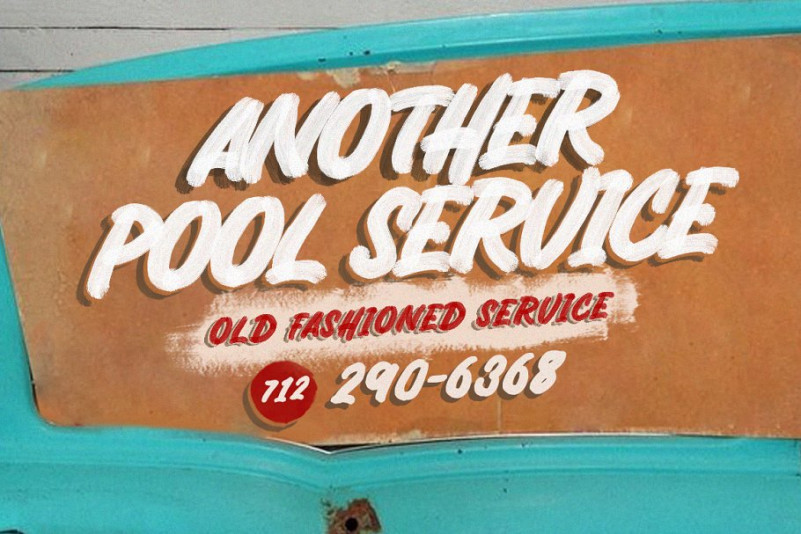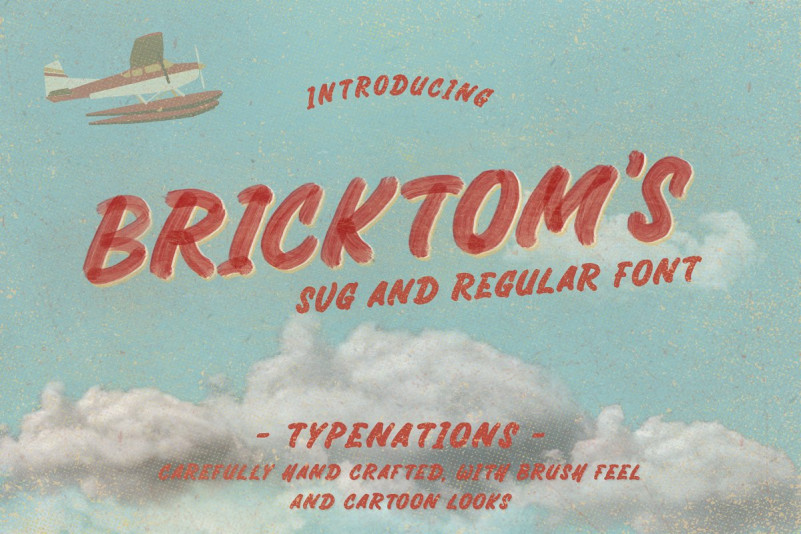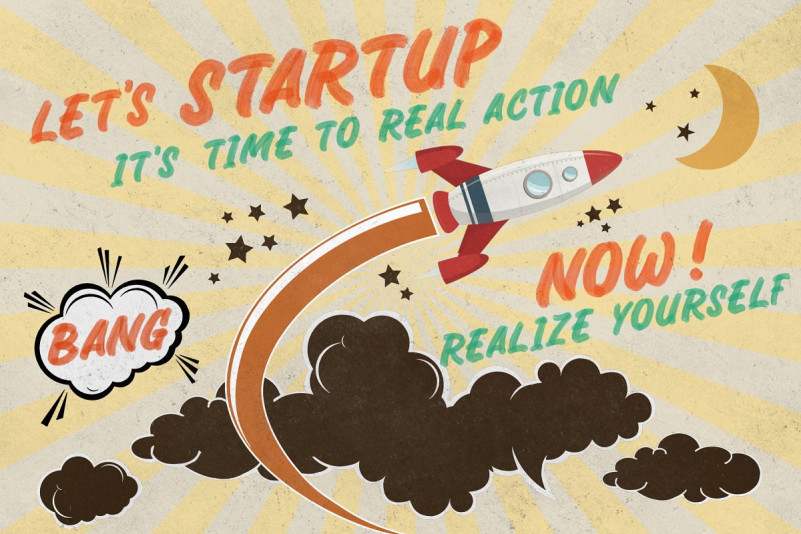
Bricktoms Font
BRICKTOM’S is my Latest SVG font. with unique detailed, and carefully hand crafted, with brush feel and carton look. although this font was inspired by ancient comics that accompanied me in childhood, this font was made with the latest technology so that, this font can be used for vintage themes or themes with contemporary styles. BRICKTOM’S perfect to use for anything from promotional material and handwritten quotes, to product packaging, merchandise and branding projects.